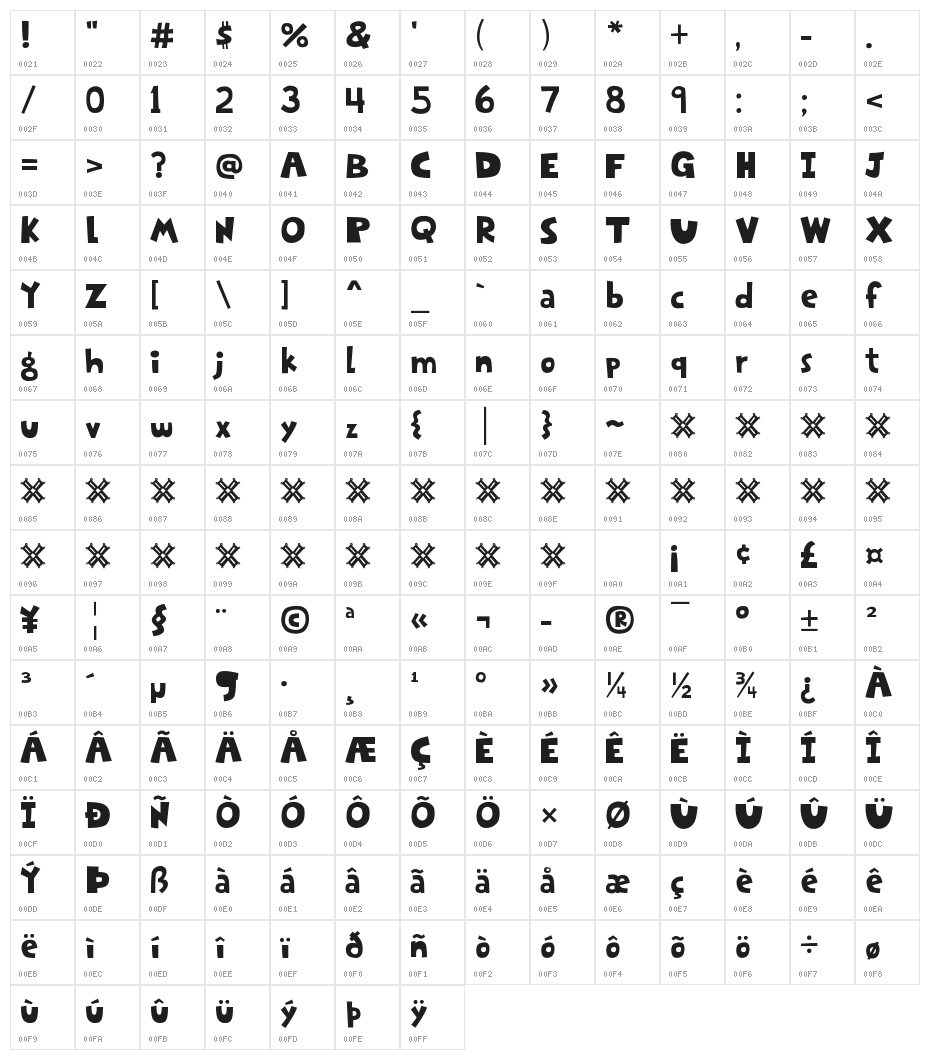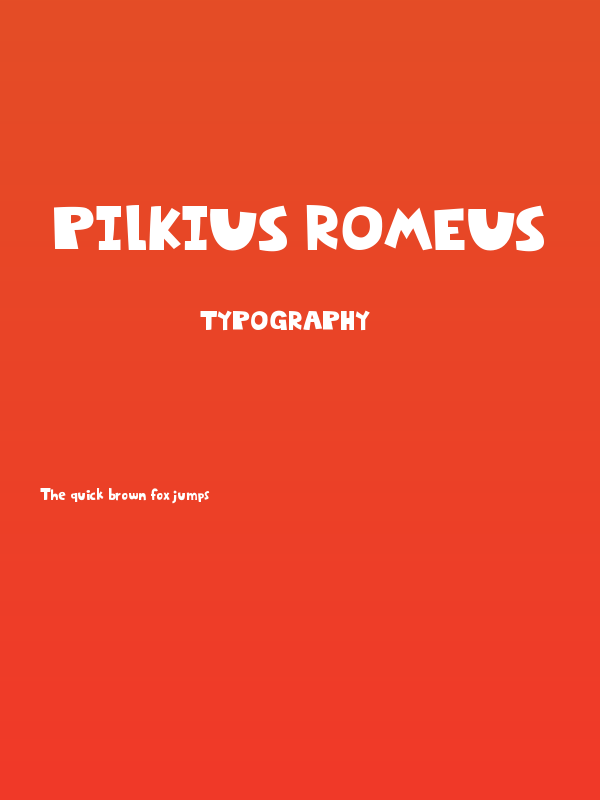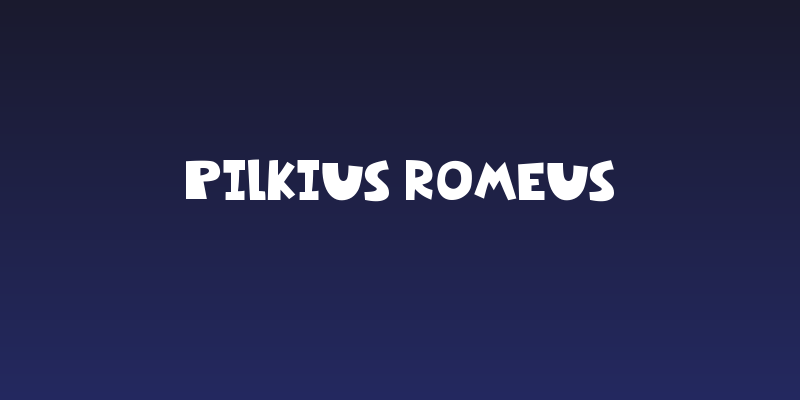
Pilkius Romeus Font
Pilkius Romeus Description
This font features a playful and bold design with a quirky, hand-drawn aesthetic. The characters are slightly irregular, giving it a whimsical and informal look. The uppercase letters are robust and dynamic, while the lowercase letters maintain a friendly and approachable style. Numbers and special characters follow the same lively theme, making the font suitable for creative and fun projects. The overall appearance is eye-catching and energetic, perfect for grabbing attention.
| Overall Style | Playful, Whimsical |
| Proposed Projects | Ideal for children's books, playful branding, party invitations, and creative posters. |